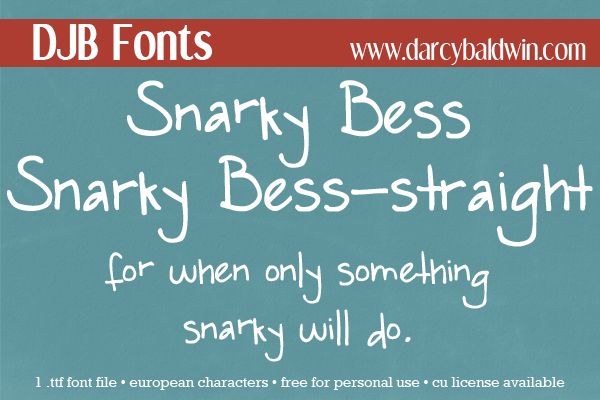
Preview and download DJB Snarky Bess Font. Created by DJB Fonts in Script Handwritten styles with Free for personal use license.
Font name: | DJB Snarky Bess |
Author: | DJB Fonts |
Note by DJB Fonts | |